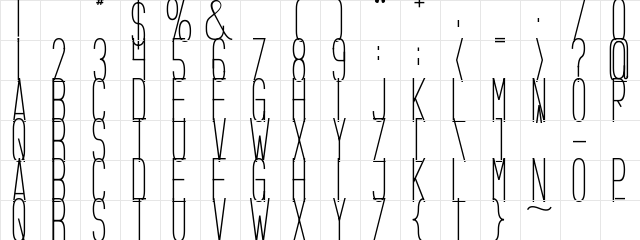
Bologna Sansish Regular
Design Context for Bologna Sansish Typeface
Bologna Sansish is a composed and adaptable typeface that performs quietly and consistently across a wide range of design contexts.